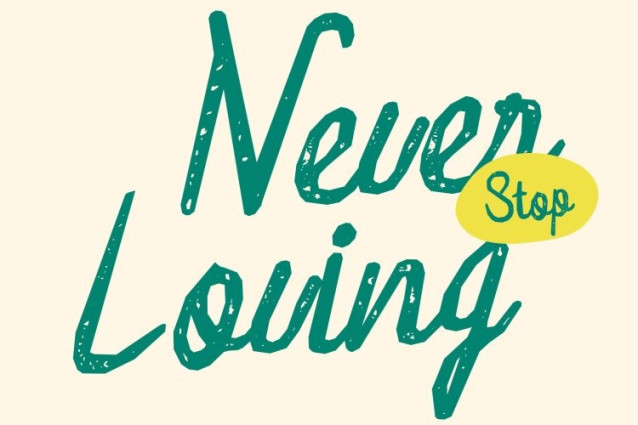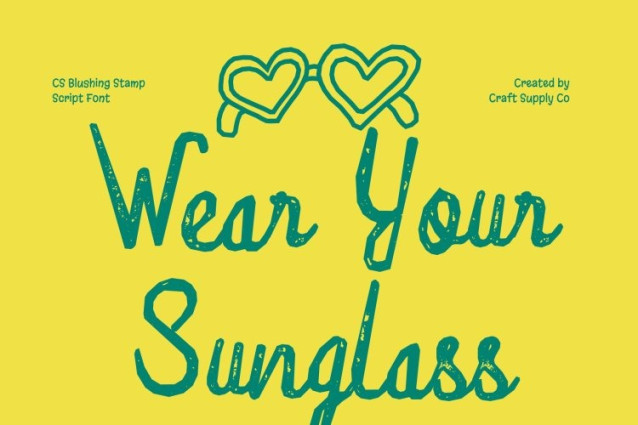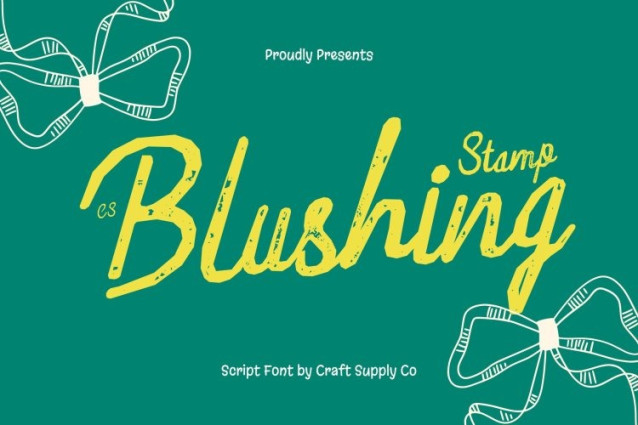
CS Blushing Stamp Font This elevates the clean, flowing beauty of the original script with a subtle stamped finish. The smooth handwritten strokes remain graceful and fluid, now accented by gentle ink variations and softly worn edges. This stamped texture adds depth and tactility, giving the font a warm, handcrafted presence that feels authentic and personal.
Feminine Romance with Natural Warmth
The elegant curves and rhythmic flow of this font are enhanced by slight imperfections introduced through the stamp effect. This creates a look that feels romantic, tender, and human perfectly balancing refinement with emotional warmth. Its feminine character remains soft and polished, yet more expressive and intimate.
Ideal for Romantic and Lifestyle Designs
This is beautifully suited for wedding invitations, thank-you cards, beauty and fashion branding, lifestyle packaging, and heartfelt social media visuals. The stamped texture brings a nostalgic charm that makes designs feel cozy, sincere, and thoughtfully crafted while maintaining modern readability.
Charming, Expressive, and Timeless
By blending graceful script letterforms with a vintage-inspired stamped finish, this font offers a harmonious mix of elegance and character. It’s an ideal choice for designers seeking a script font that feels gentle, romantic, and genuinely handcrafted bringing softness, emotion, and beauty to every visual story.